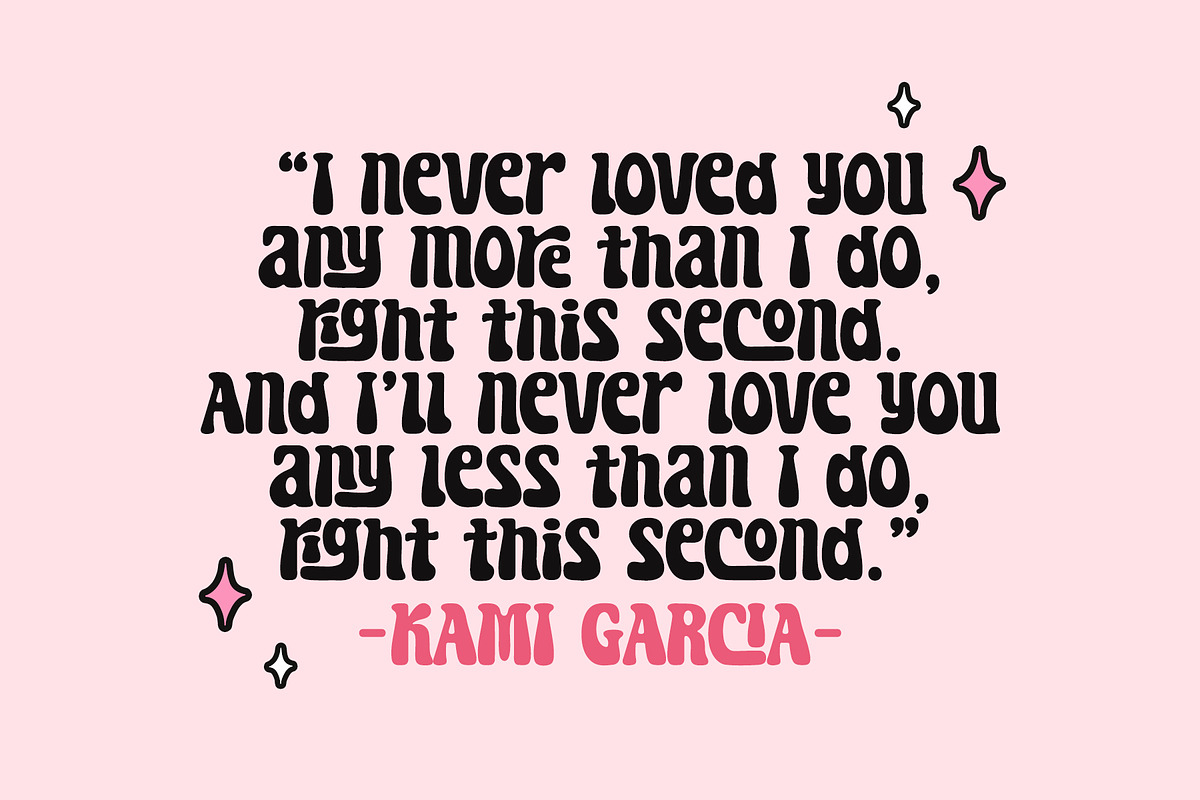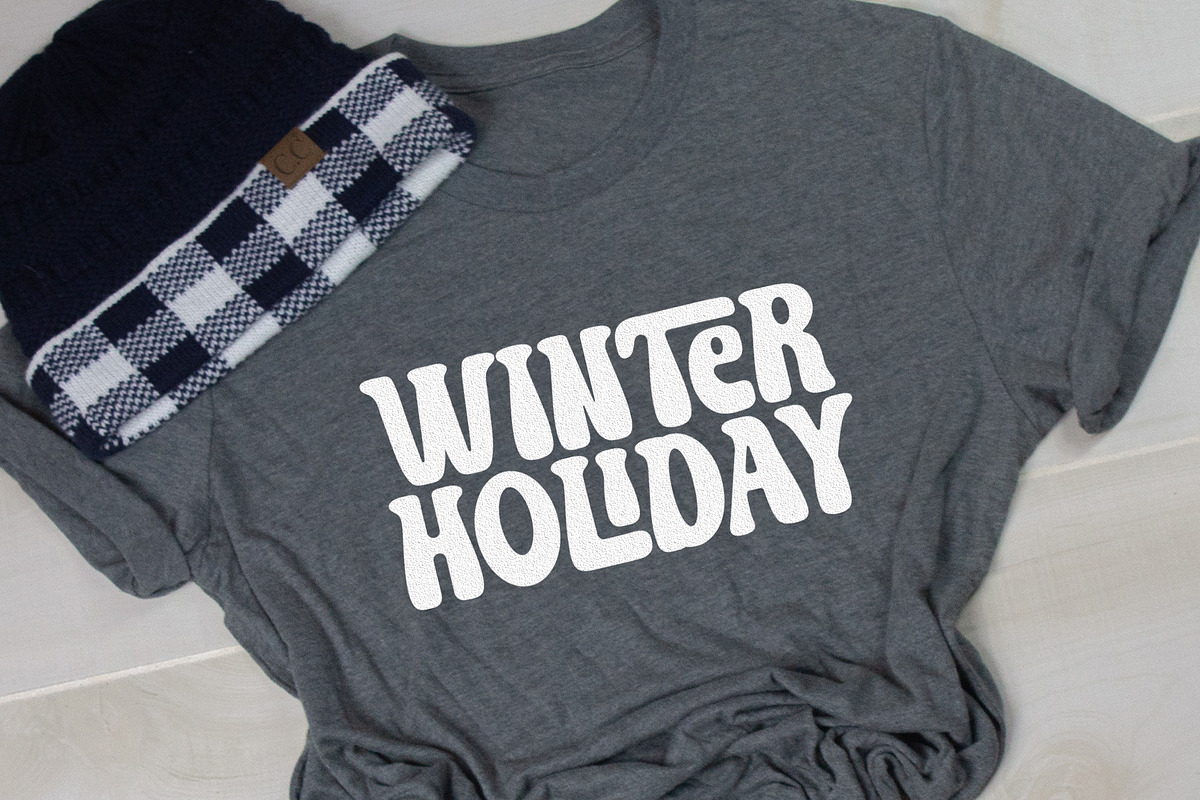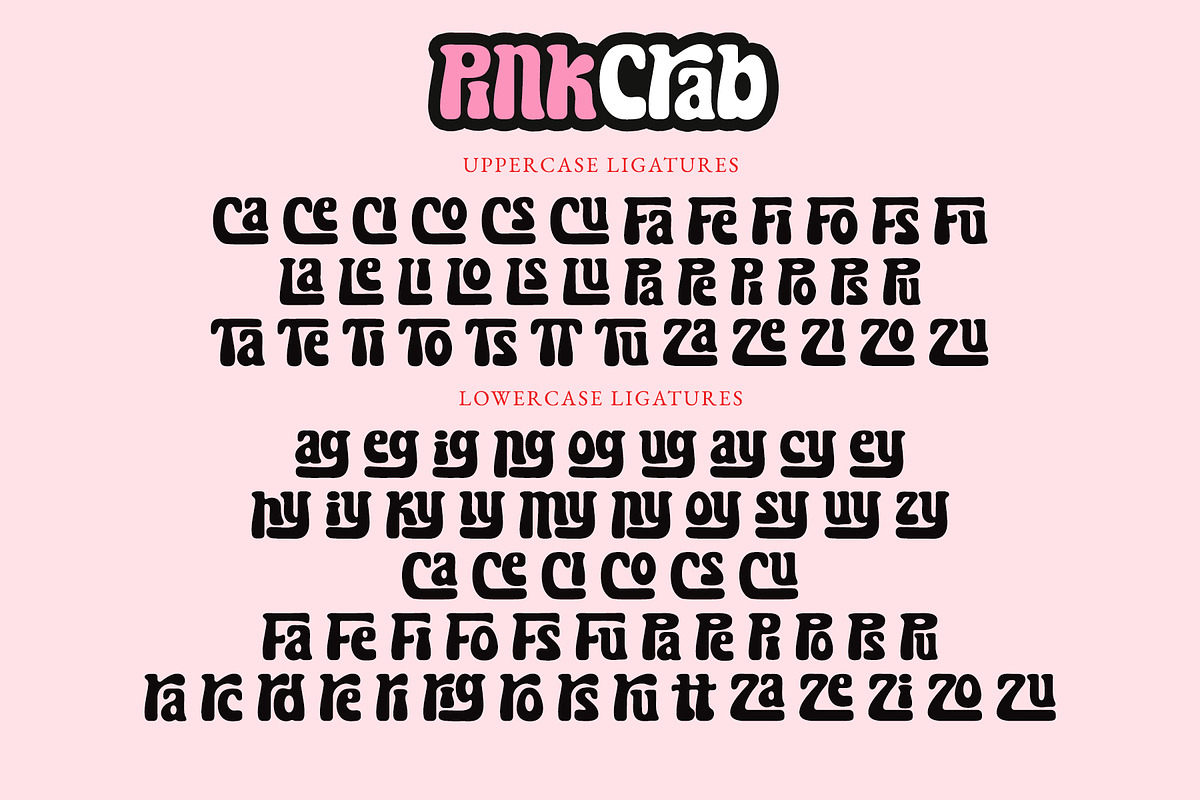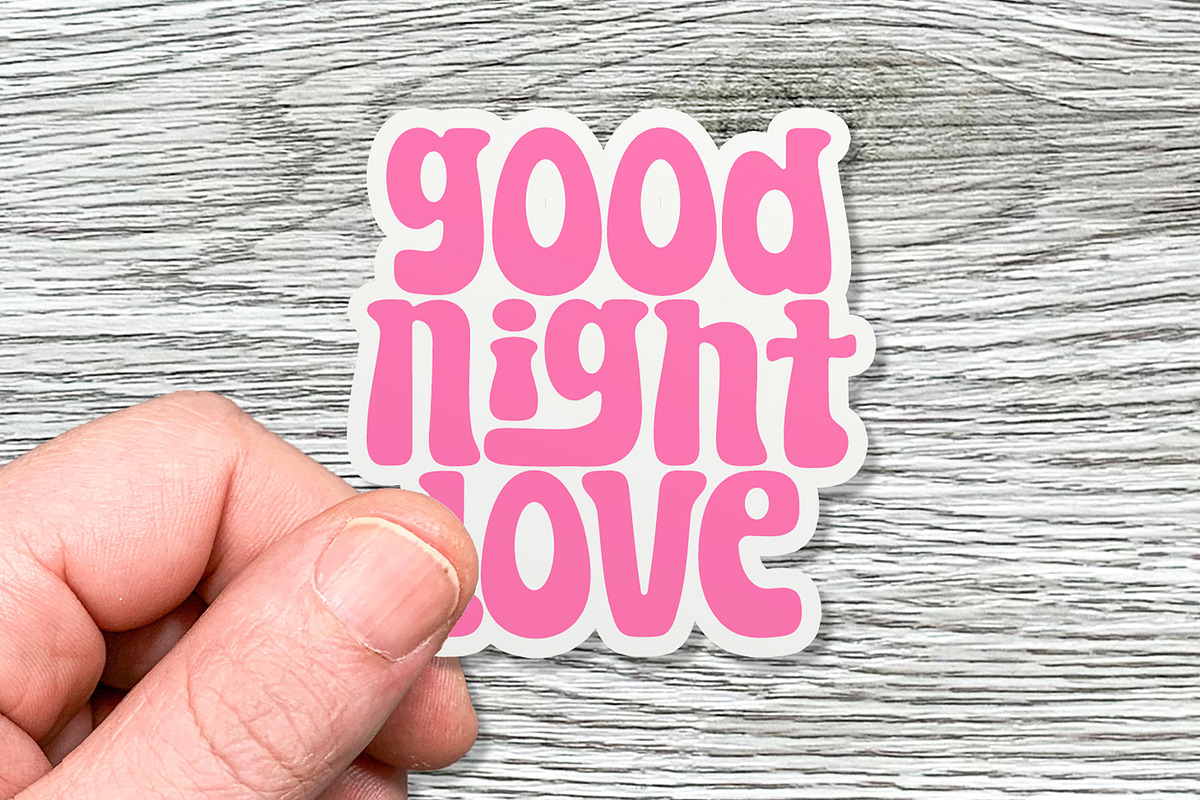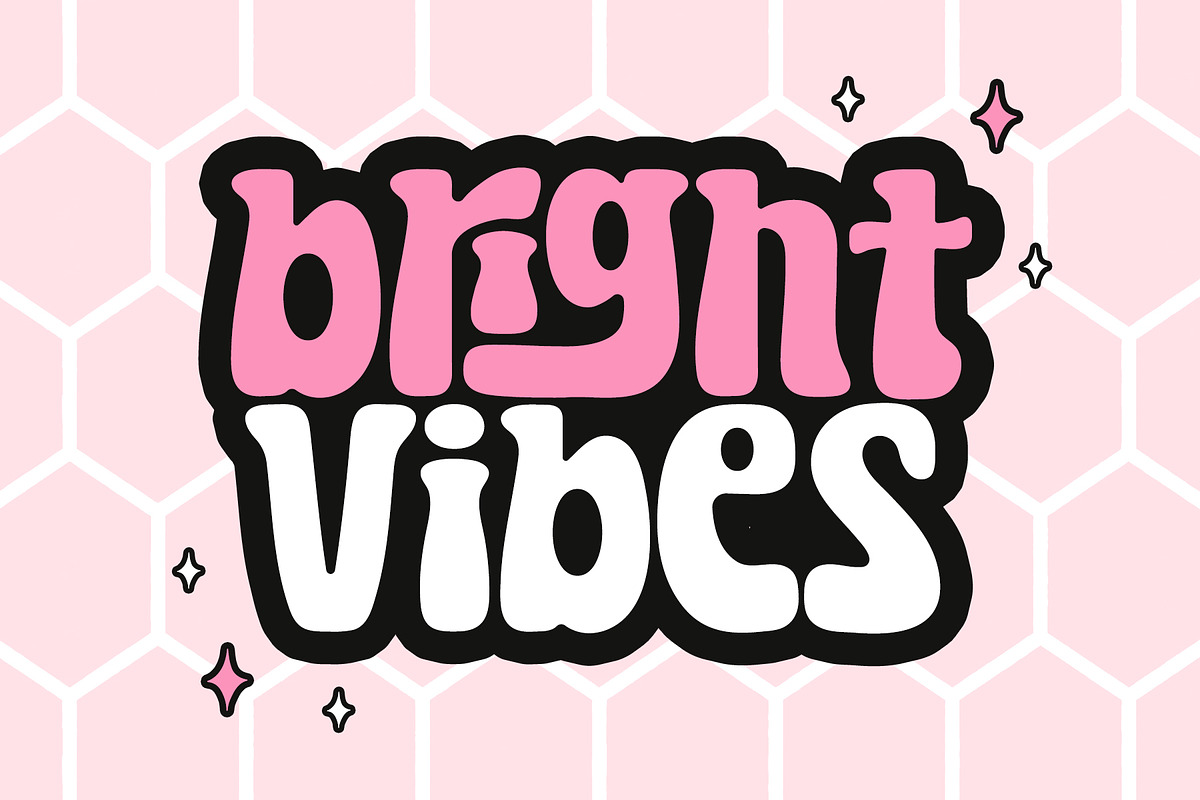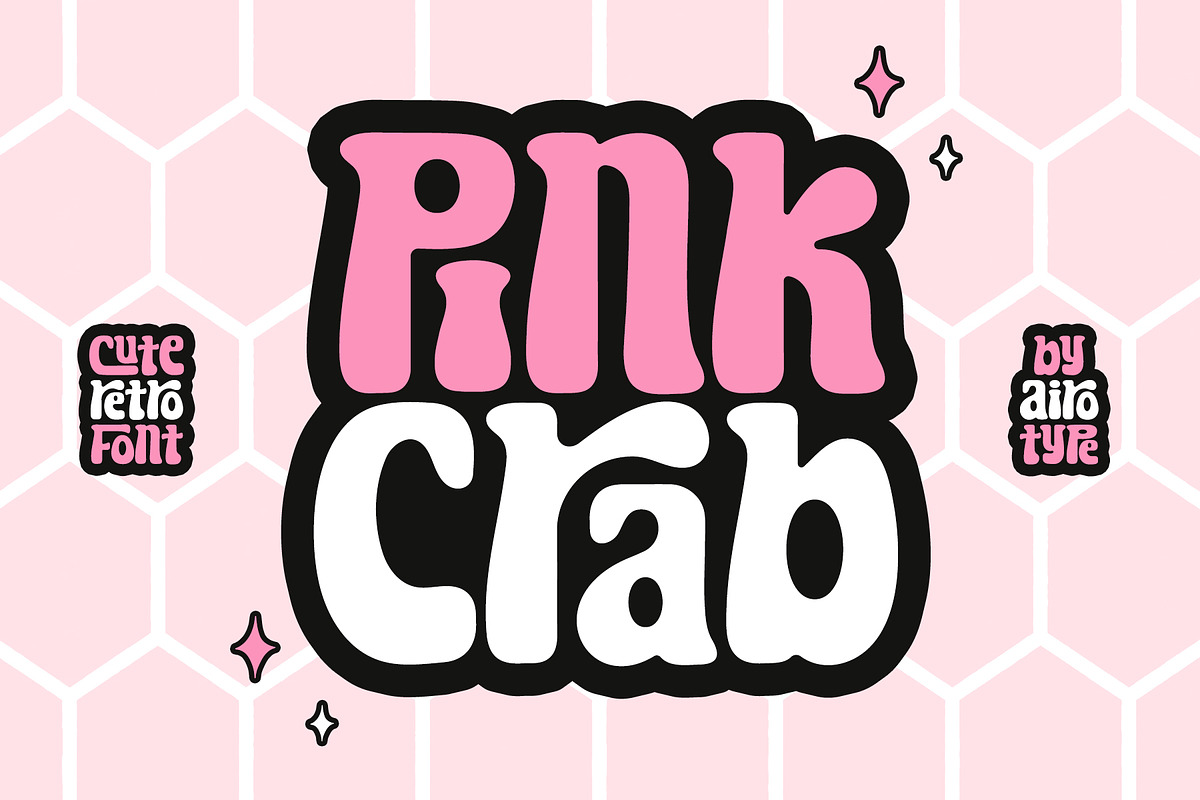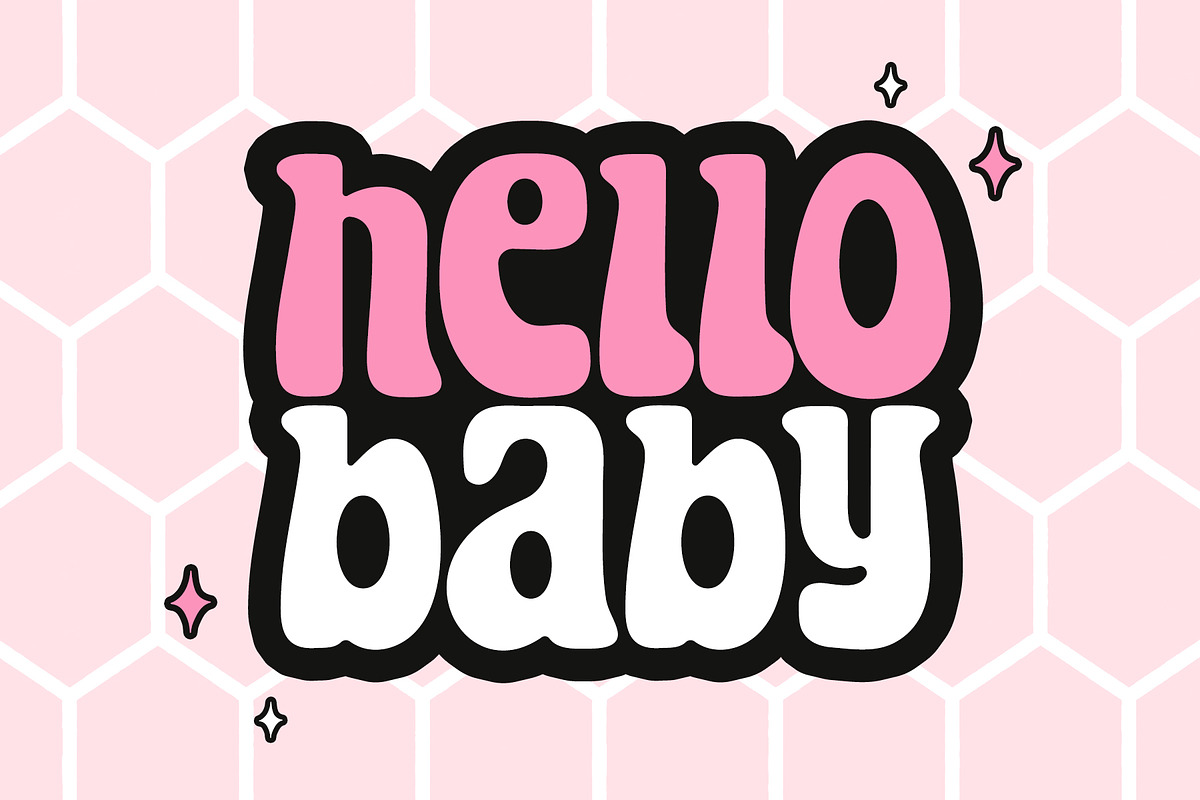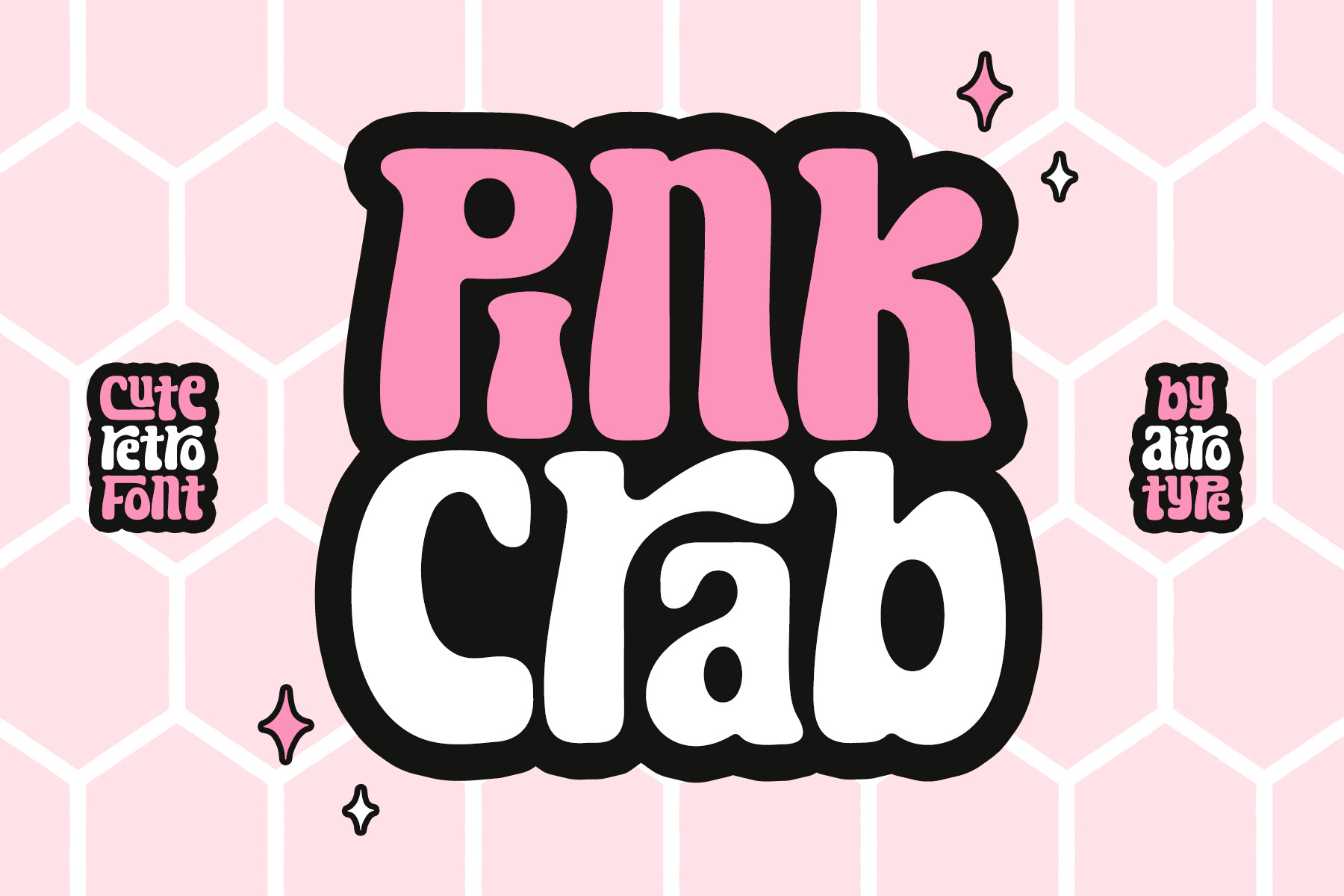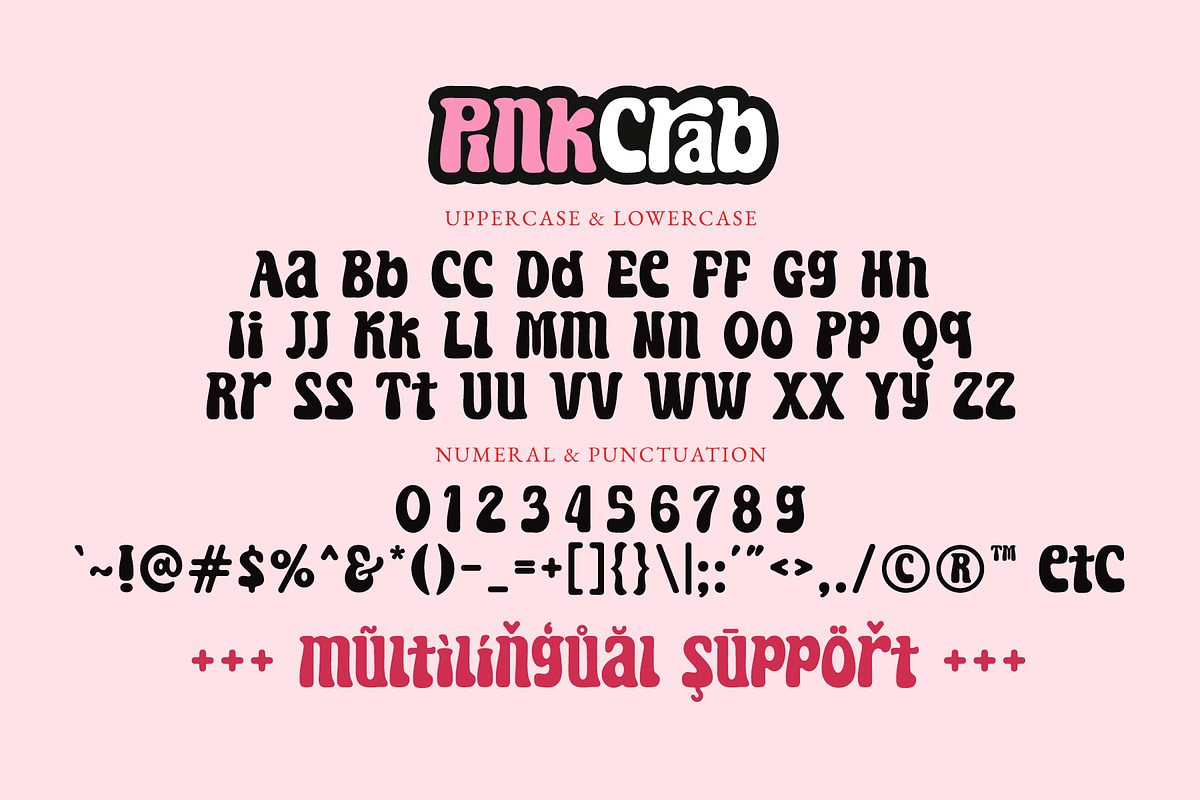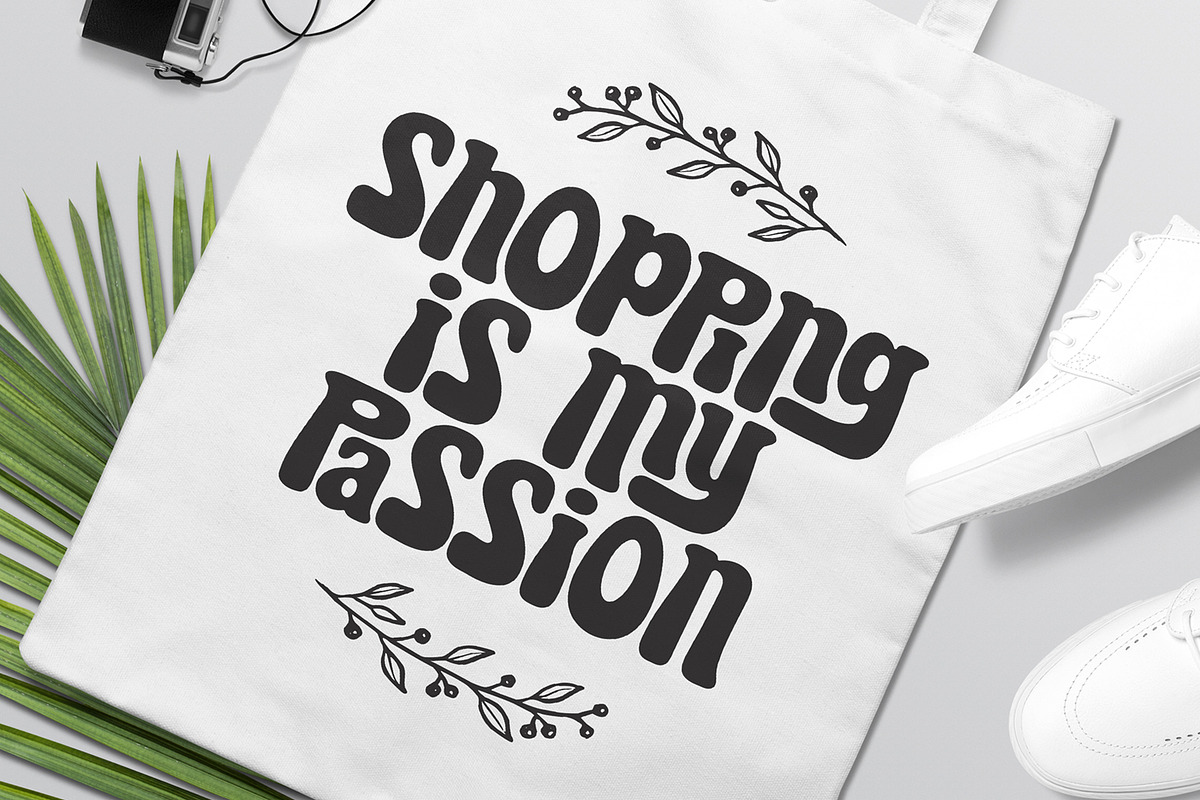
Pink Crab - Cute Retro Font
Pink Crab is fun and cute retro font. It has playful style with vintage touch.
Pink Crab has some ligatures for its uppercase and lowercase.
This font is pretty for any projects, especially with fun and vintage style, such as logo, crafting, t-shirt, branding, sticker, sublimation, quotes, greeting cards, and many more.
- Uppercase and Lowercase (include ligatures)
- Most Multilingual Accent